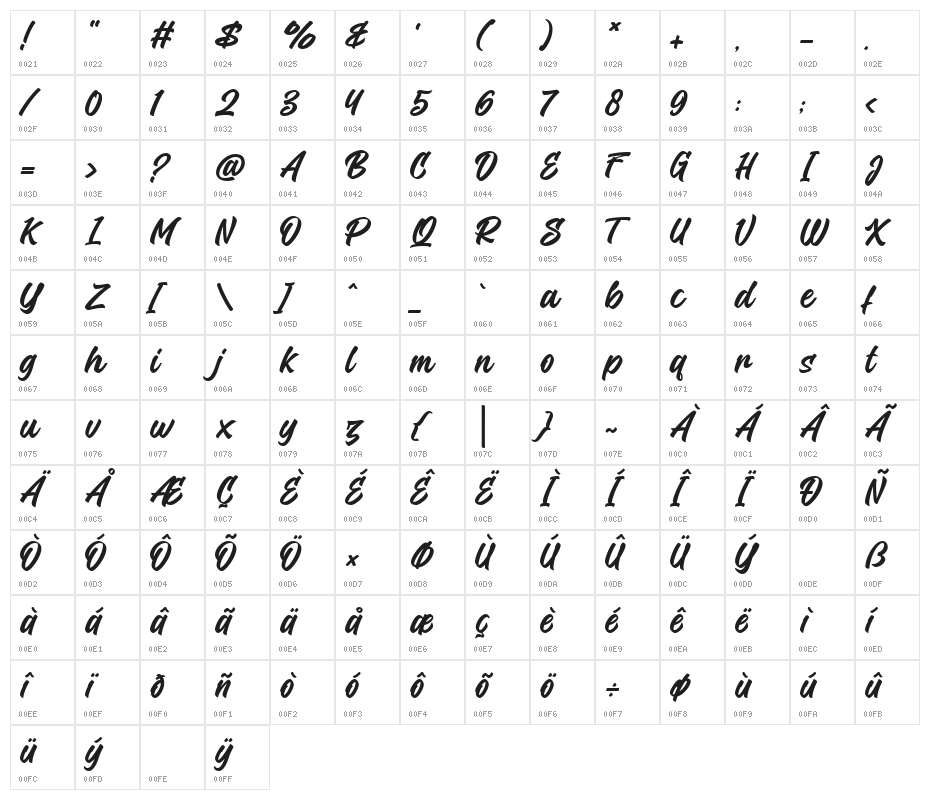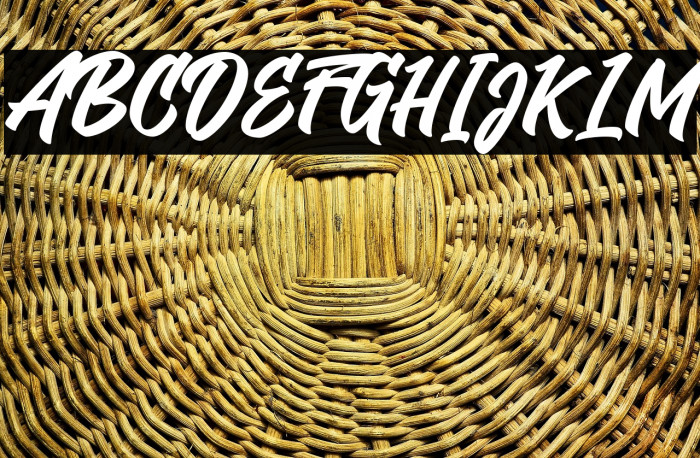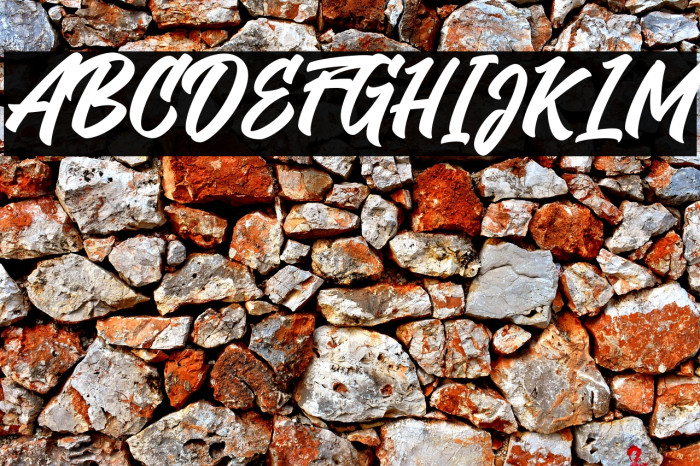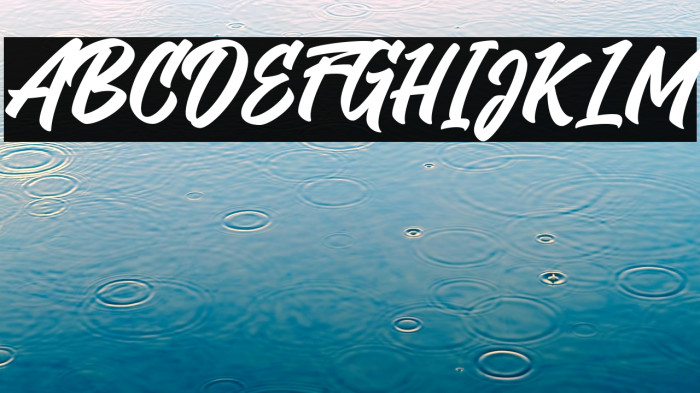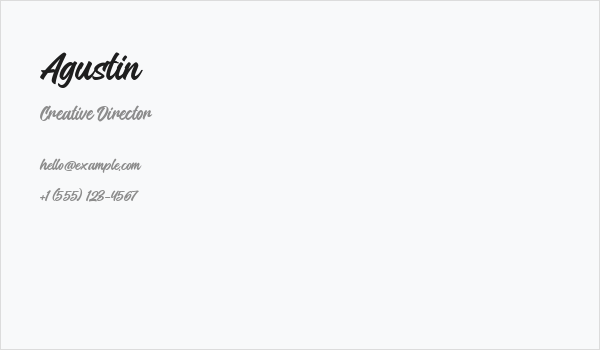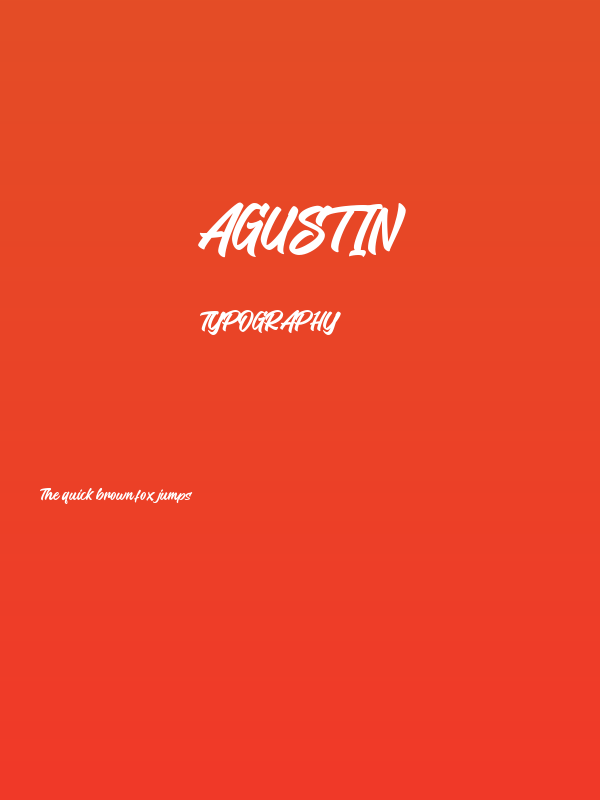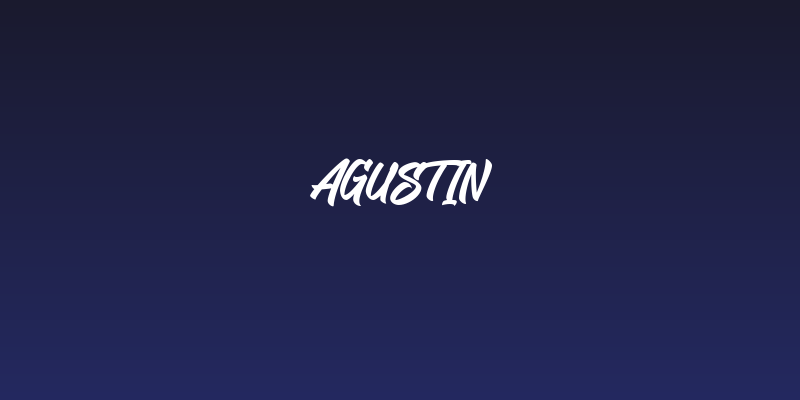
Agustin Font
Agustin Description
This font features a bold and dynamic script style, characterized by its fluid and connected strokes. The letters are designed with a sense of motion and energy, making it ideal for creating a lively and engaging visual impact. The uppercase and lowercase letters maintain a consistent style, with smooth curves and a slight slant that adds to the overall flow. The numerals and special characters are crafted to match the energetic style of the alphabet, ensuring a cohesive look across all text elements. This font is perfect for projects that require a personal and expressive touch.
| Proposed Projects | Ideal for branding, invitations, posters, and any project needing a personal, expressive touch. |